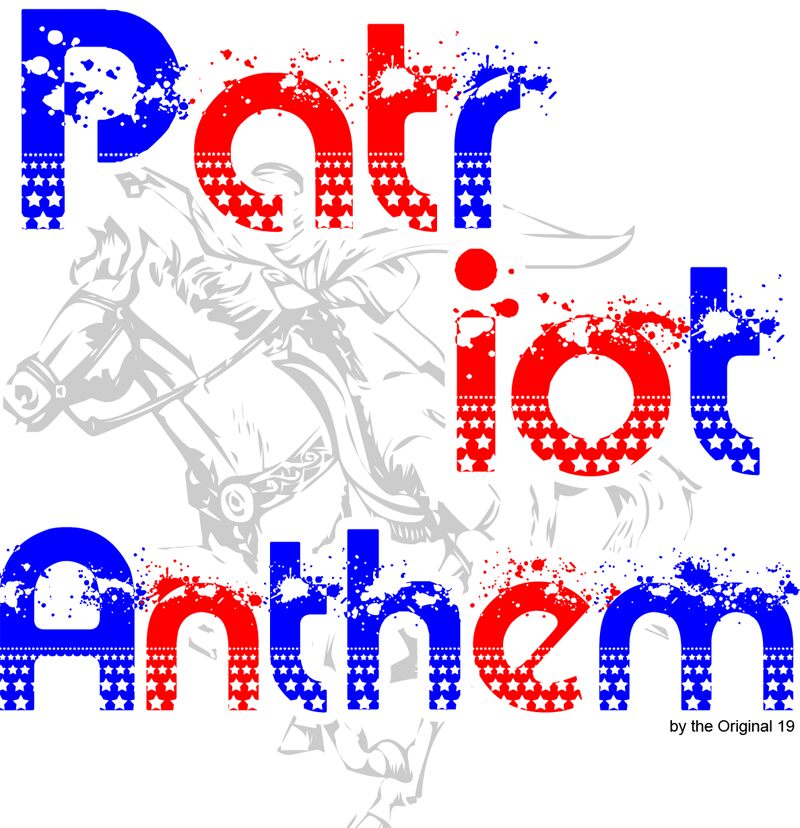
Patriot Anthem is a free eroded display font with broad, blocky letters and a distinctly American theme. Stars and striped bands are cut into the forms, and rough speckling gives the lettering a worn, screen-printed surface.
An Independence Day event or heritage-themed clothing brand could use it across posters, merchandise, and packaging. The flag-based details also connect directly with military, civic, or election imagery. It is most convincing when the lettering itself acts as the patriotic emblem.
Patriot Anthem